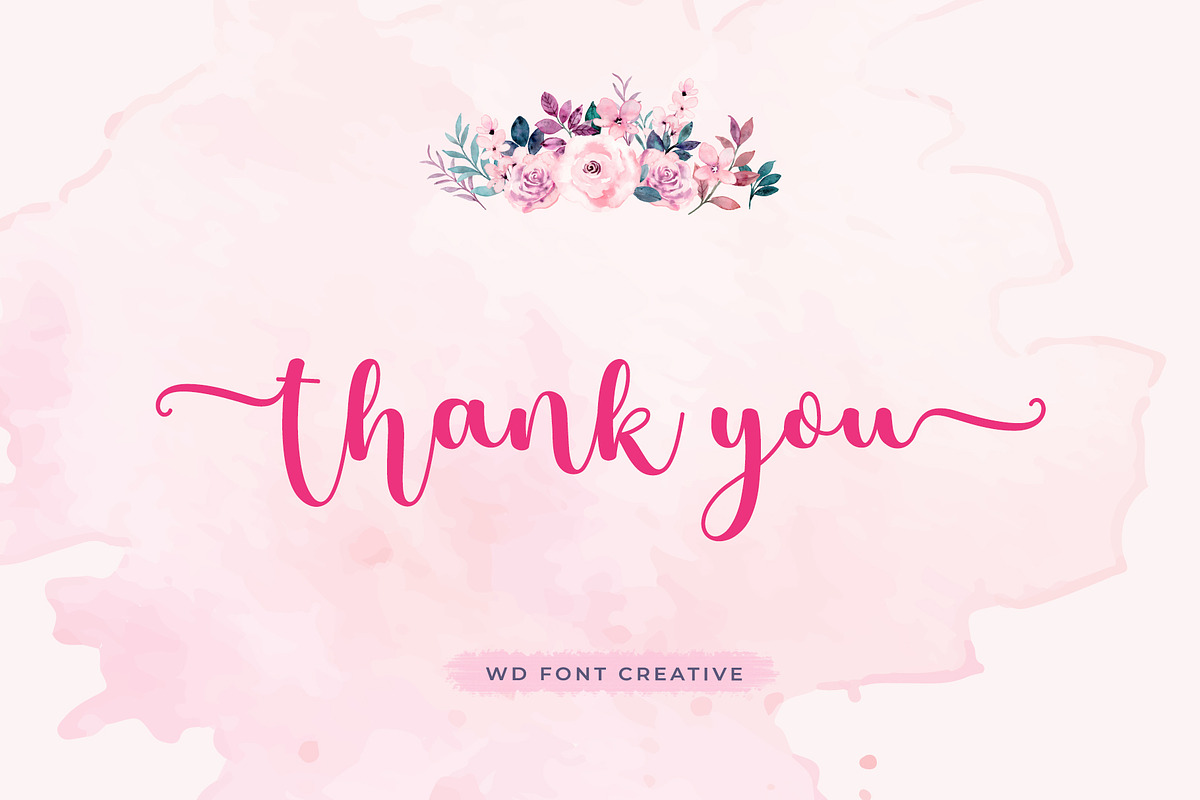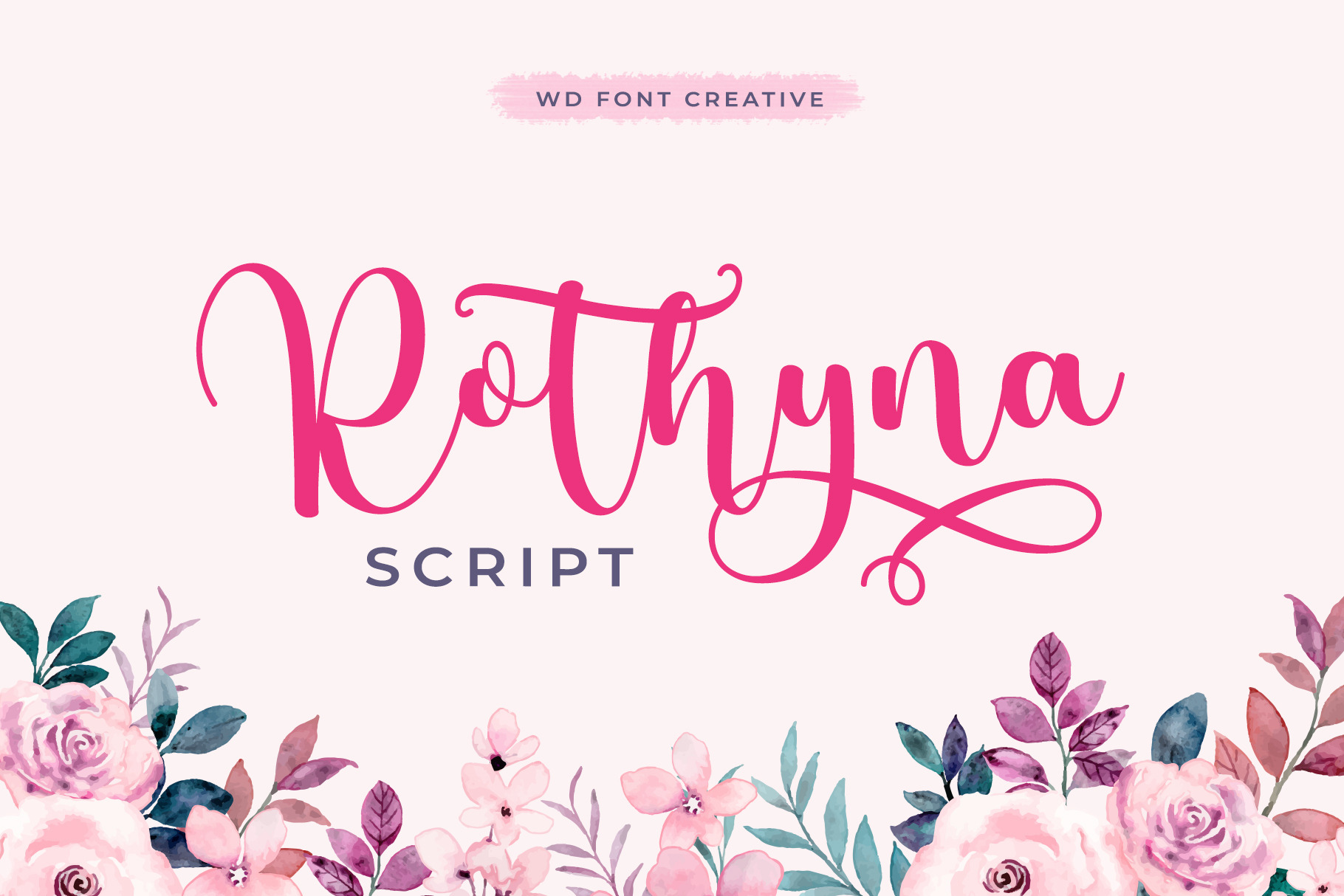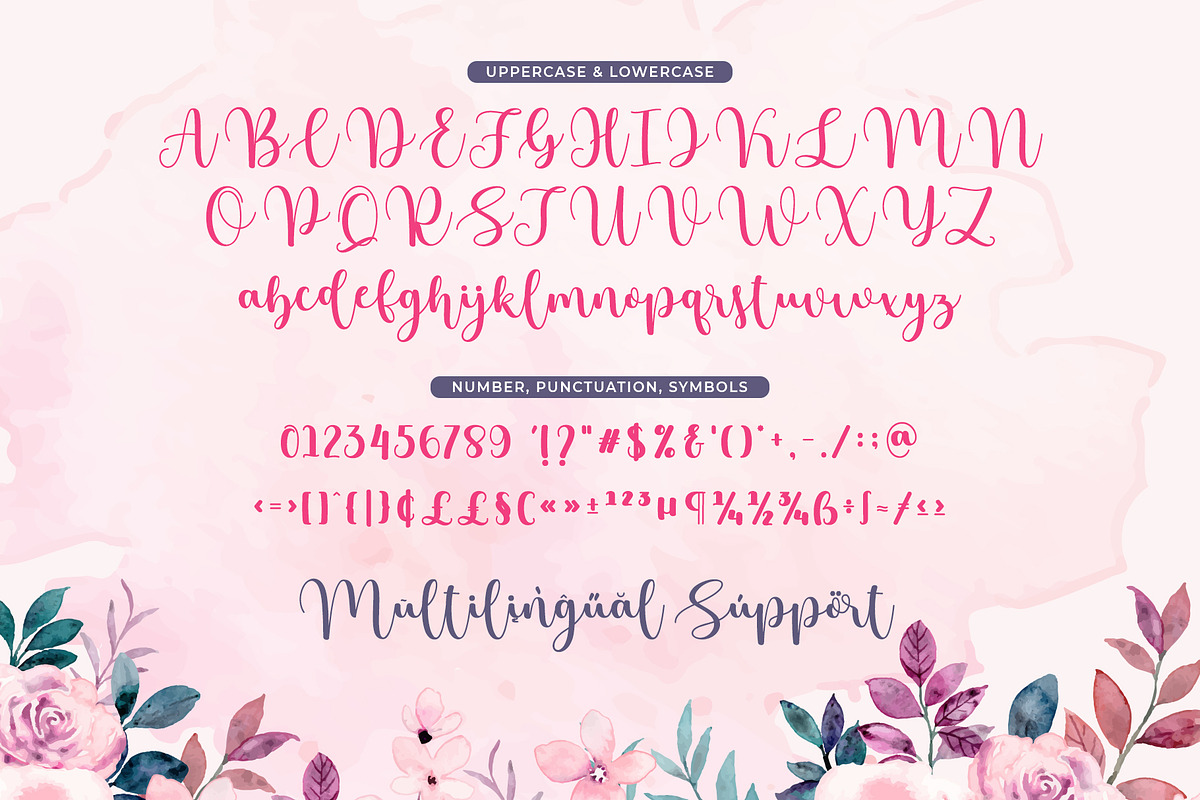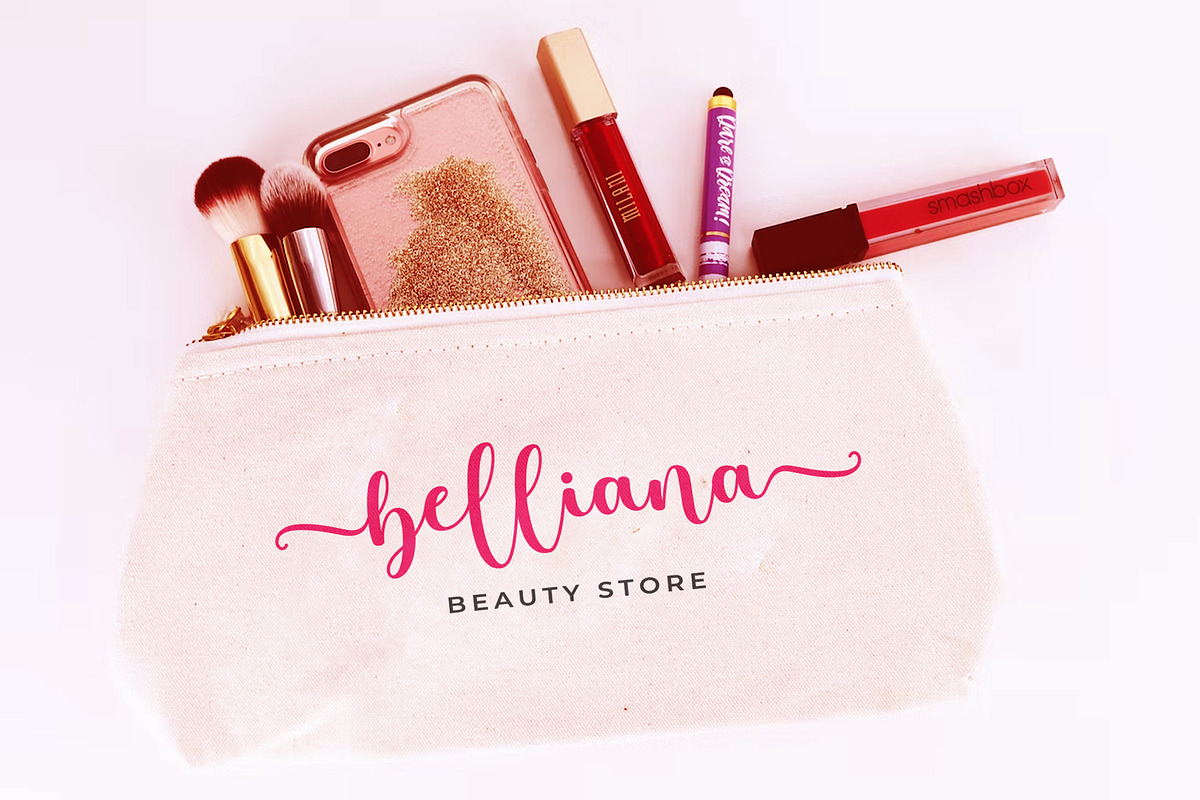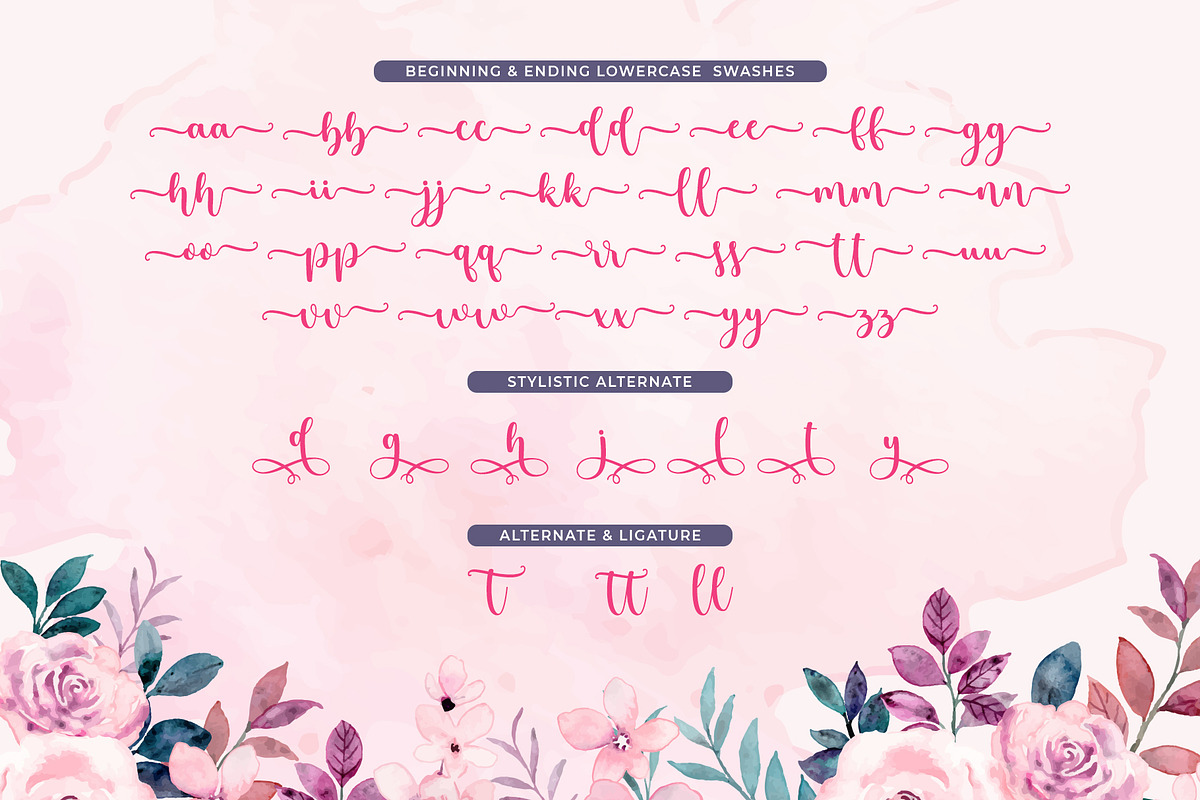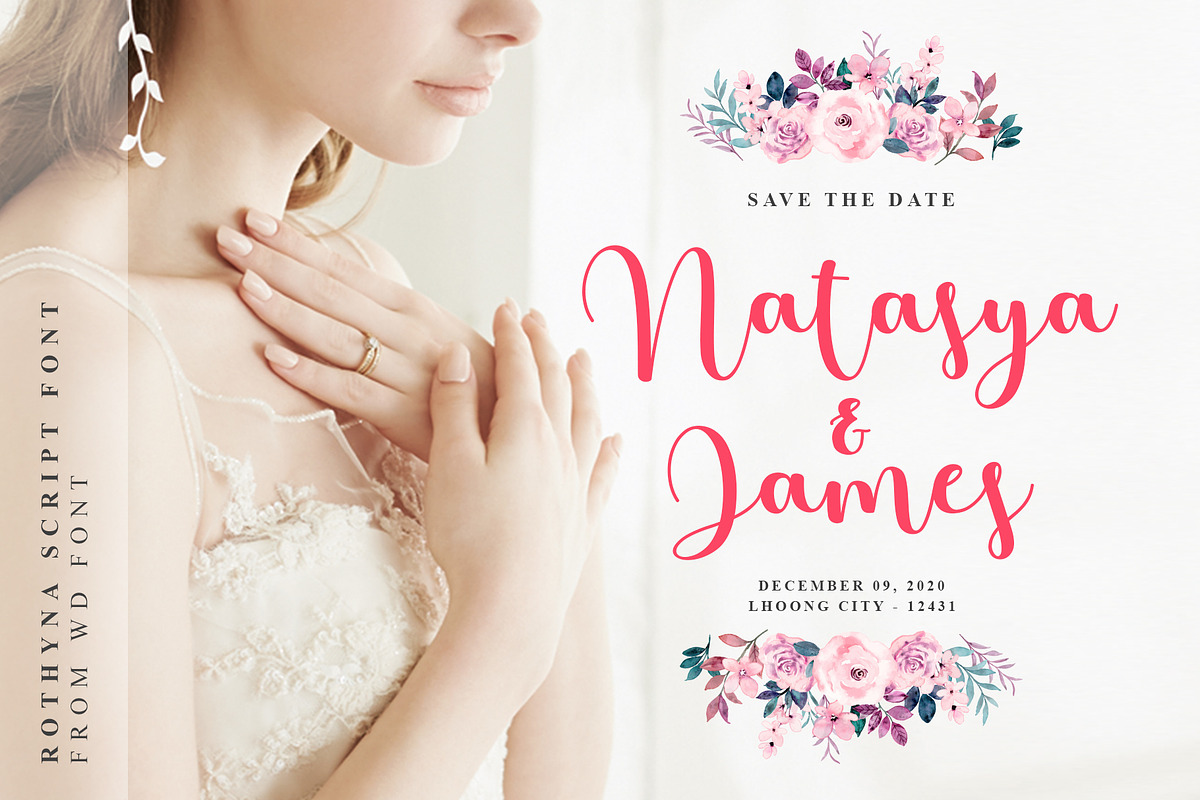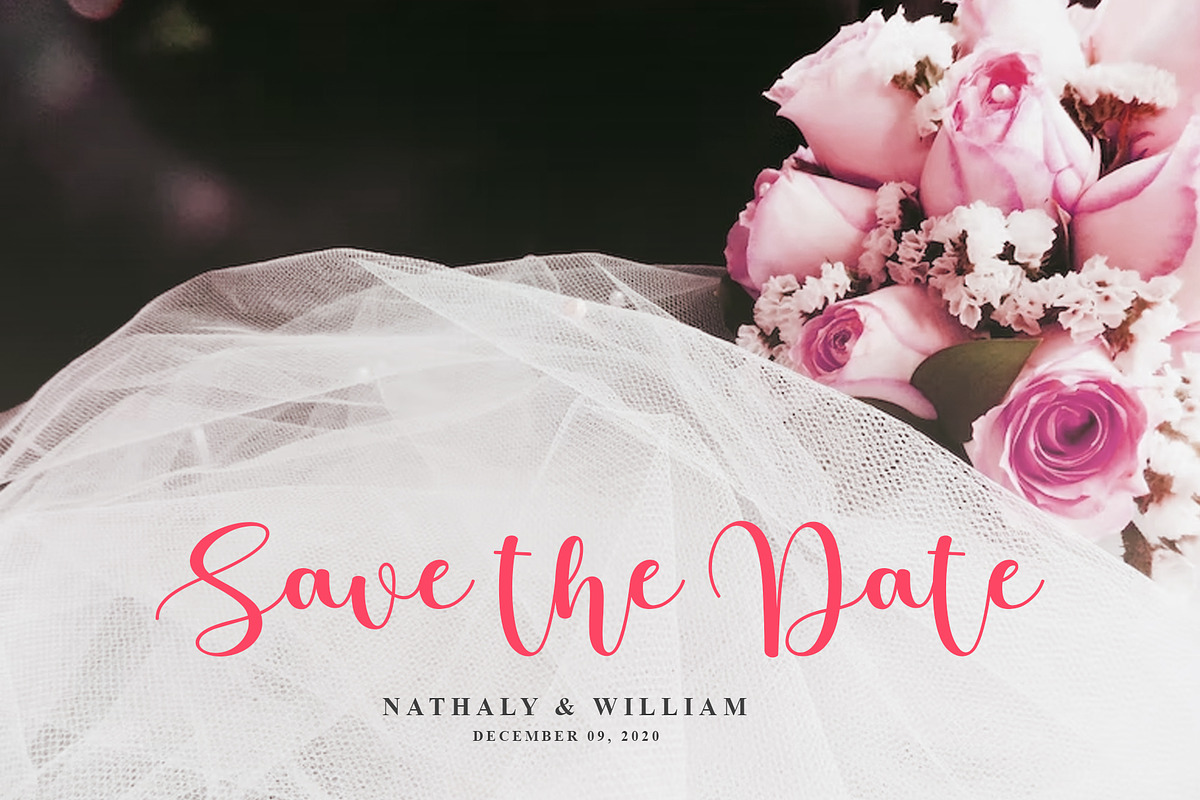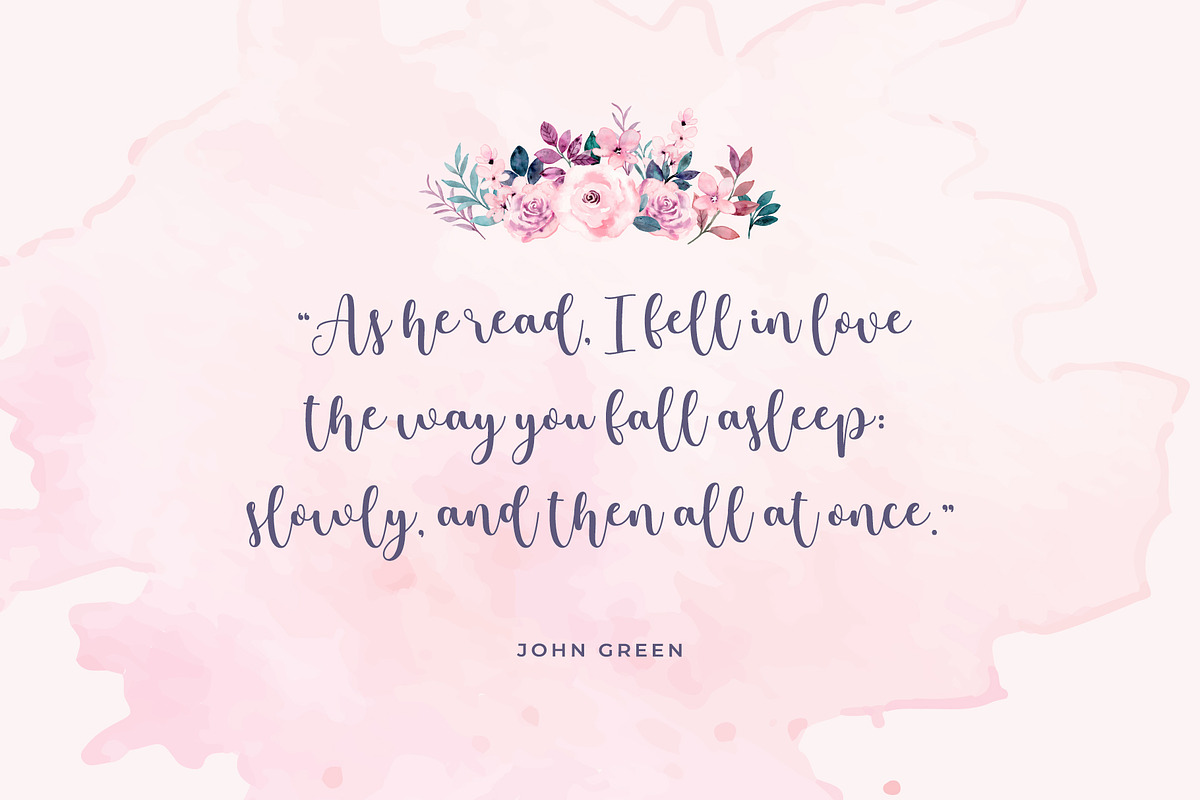
Rothyna Script | Modern Wedding Font
Rothyna Script is a handwritten font with a modern and elegant shape that looks fresh and pleasing to the eye. This font can be used for many purposes such as wedding invitations, engagement invitations, product displays, clothing writing, fashion and others.
The alternative characters were divided into several Open Type features such as Swash, Stylistic Sets, Stylistic Alternates, Contextual Alternates. The Open Type features can be accessed by using Open Type savvy programs such as Adobe Illustrator, Adobe InDesign, Adobe Photoshop Corel Draw X version, And Microsoft Word. And this Font has given PUA unicode (specially coded fonts). so that all the alternate characters can easily be accessed in full by a craftsman or designer.